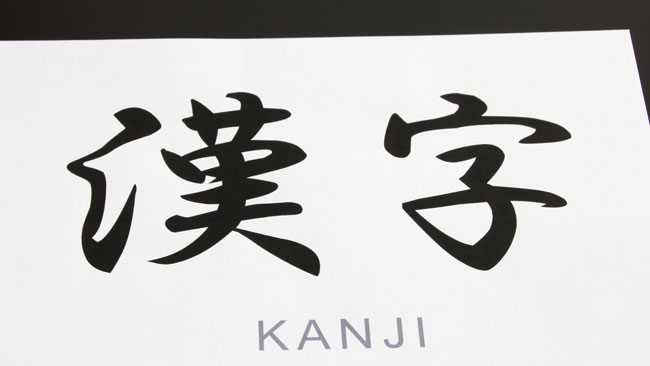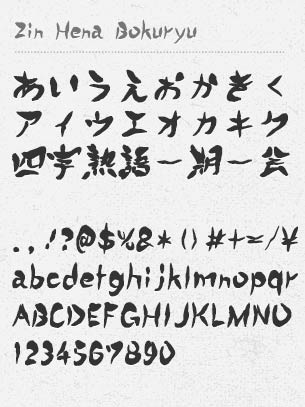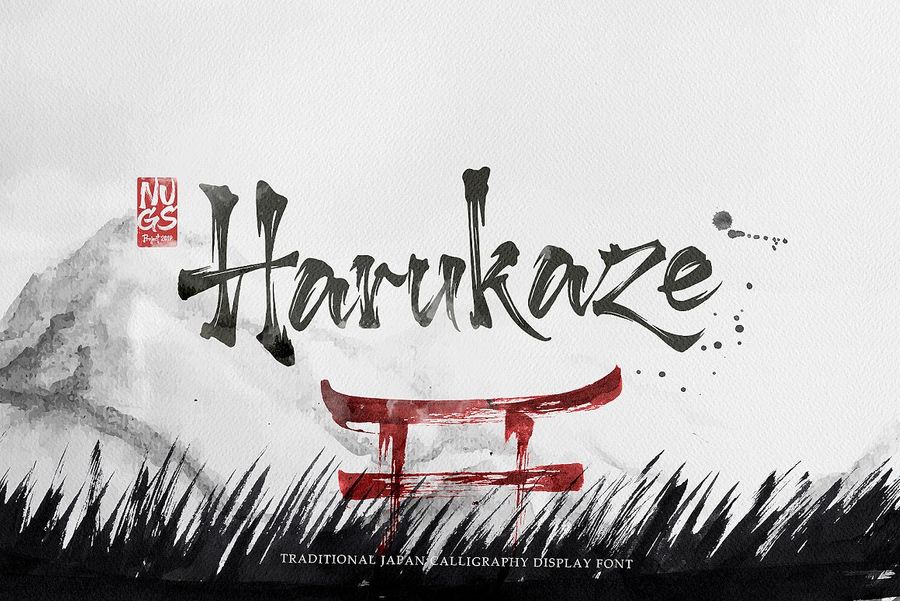
Japanese font Kakushin Gyosho is a semi-cursive script that is only slightly cursive and easy to read. Available for Web use Pay Once license Purchase the number of pageviews you need to cover your monthly traffic.
Calligraphy japanese brush font. Every font is free to download. Rii Tegaki Fude font is a rare font as if a cute handwriting-like font has become a brushstroke body. Japanese Brush Master - Webfont Desktop font MyFonts.
UD Reimin Pro R. Kokuryu font Demon Slayer Font is used for Japanese. Nagayama Kai is a beautiful calligraphy font that is free for all and was written by calligraphy sho.
Its distinguishing feature is the appropriate degrees of strength and weakness are present in the smooth flow of the brush displaying the delightful use of the brush. This Japanese brush font combines Japanese cultural elements in each of the glyphs for a truly authentic feel. Font brush calligraphy Japanese script classic vibrant colorful lettering typography bold.
FREE JAPANESE FONTS Over 200 Japanese fonts including kanji hiragana katakana available. Harukaze is a font with Japanese calligraphy style. Font Meme is a fonts typography resource.
If you like calligraphy brushes Harukaze is the right choice for your collection to design. Art of Japanese Calligraphy. M which possesses both strength and grace and L which displays an elegant and refined beauty can each be used for seals and letters of.
Available for Server use. Every font is free to download. Japanese Brush Master was developed directly from the hand-written brushstrokes of experienced calligrapher Shigeru.
UD Reimin Pro B. You can select 3 font types from the 50 Japanese calligraphy font types that Japanese professional designers use. Japanese calligraphy and brush stroke style fonts are availableJapanese fonts.
The Fonts in Use section features posts about fonts used in logos films TV shows video games books and more. If youre looking for a Japanese calligraphy style font Osake is it. The Fonts Collection section is the place where you can browse filter custom preview and.
Available for Digital Ad use. Nagayama Kai is a beautiful calligraphy font that is free for all and was written by calligraphy sho. Click to find the best 19 free fonts in the Calligraphy Japanese style.
14498 downloads 1533 yesterday Free for personal use - 2 font files. Free Kashima Japanese Brush Font is a unique brush font with Japanese style that made using the real brush pen and will looks very natural. As long as your traffic does not exceed the licensed amount you.
The Text Generator section features simple tools that let you create graphics with fonts of different styles as well as various text effects. Looking for Brush Calligraphy fonts. The font is a typeface designed in a brushstroke style with the image of a fiery and strong young dr.
Very suitable for use in movie titles logos band names branding marketing social media cards web design t-shirt designs and more. Japanese font Kakushin Gyosho is a semi-cursive script that is only slightly cursive and easy to rea. We have 5 free Ink Brush Script Calligraphy Fonts to offer for direct downloading 1001 Fonts is your favorite site for free fonts since 2001.
UD Reimin Pro L. For those who want to get Kanji tattoos t-shirts karatejudo belt book covers product packaging etc using Japanese kanji fonts Well translate your words or phrases into Japanese symbols designed with 3 different calligraphy. Harukaze Brush Font Japanese Calligraphy New Fonts.
It includes upper and lowercase characters numbers and punctuation.